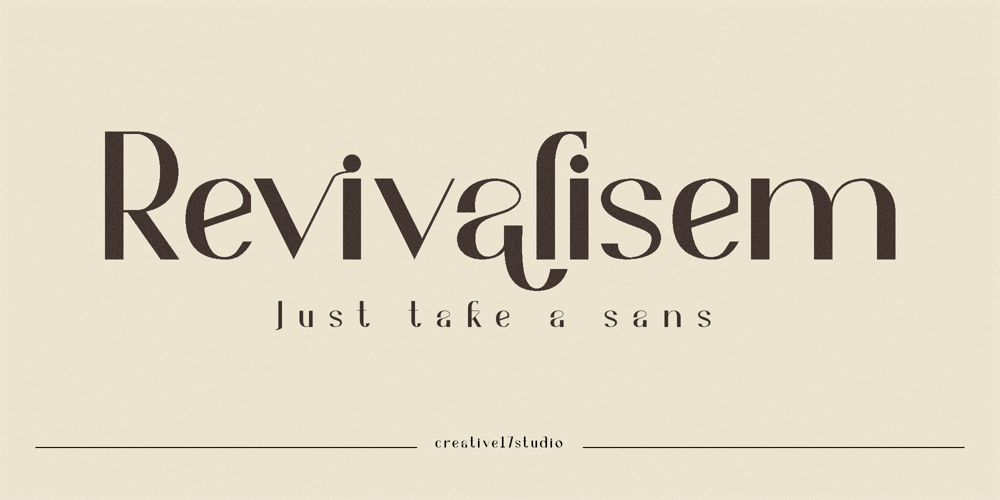
Revivalisem
Revivalisem font
Revivalisem Font Family was designed by Irfan Hidayat and published by Creative17studio. Revivalisem contains 2 styles and family package options. Revivalisem is a sans serif font with a modern style that is very luxurious, seen from its luxurious character. Revivalisem comes with complete upper and lowercase letters, numbers, punctuation marks, ligatures, alternative letters and supports multiple languages ​​to make it easier for you to convey something through this writing font. This font is very versatile for the use of a variety of design projects. especially for fashion branding and editorial design.Any question? Just ask.Free update.